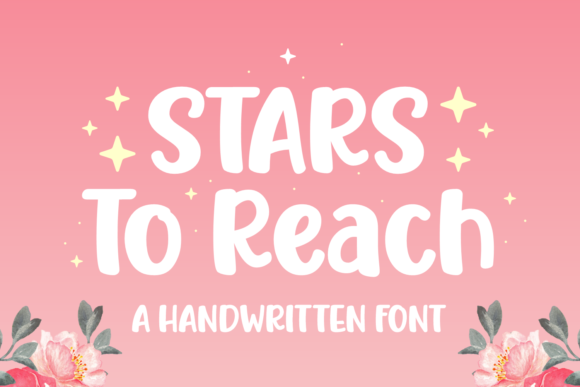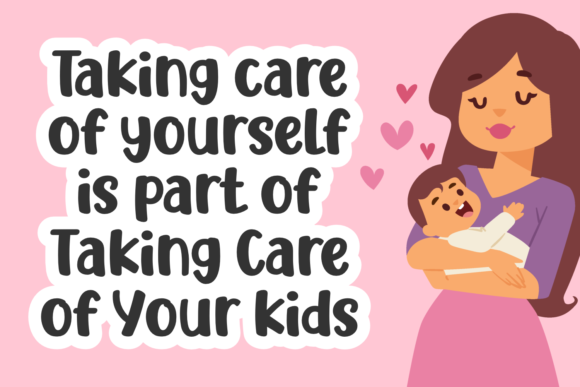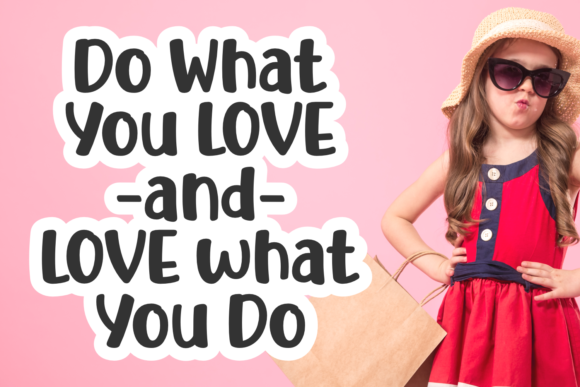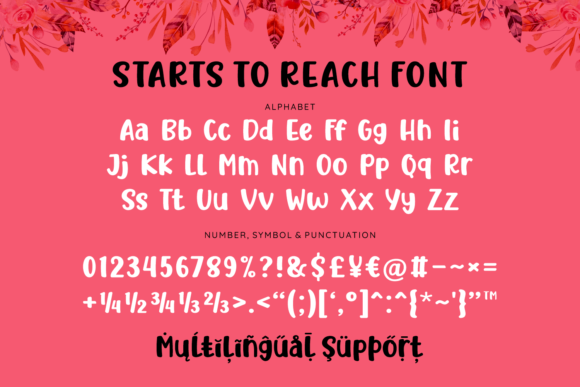
Stars To Reach Font: Cute Handwritten Font for DIY & Cricut Projects
About the Stars to Reach Font
Elevate your designs with Stars to Reach Font, a font that combines sophistication with readability. Stars To Reach is a cute and playful handwritten font. It’s perfect for Easter cards, birthday cards, invitations, quotes, t-shirts, branding, posters, magazines, and logos.
Stars to Reach Font Usage Examples
Stars to Reach Font Example